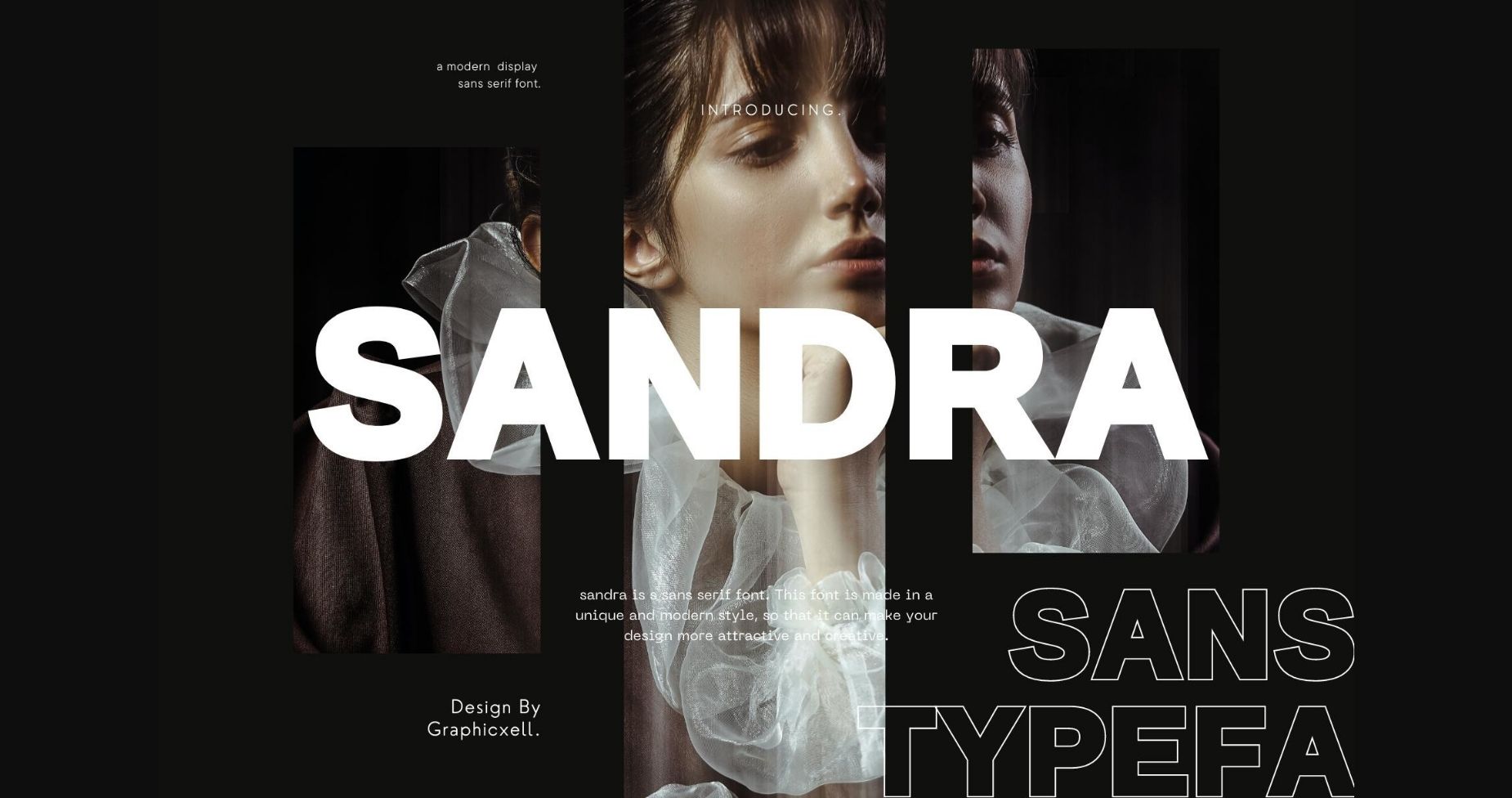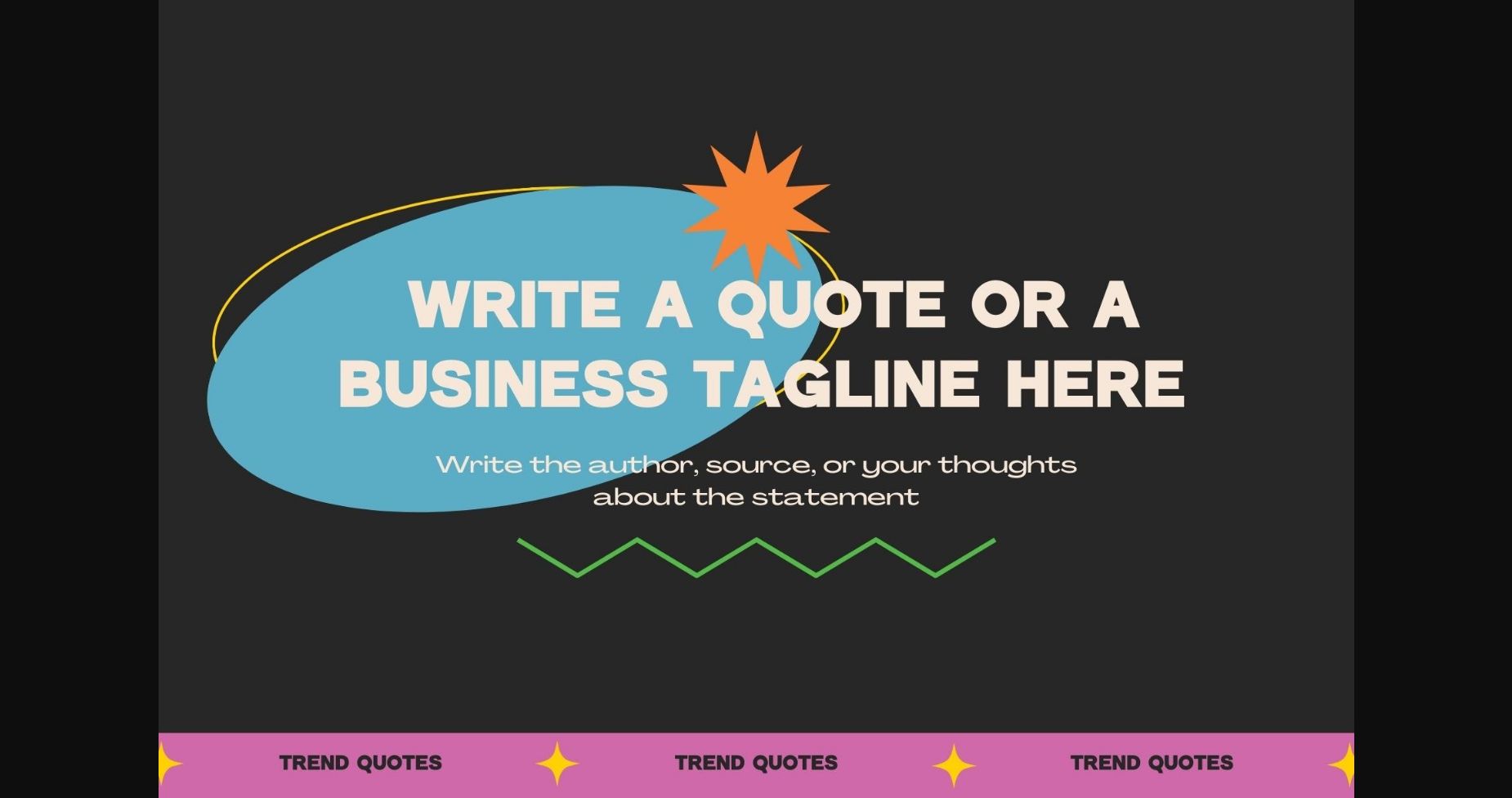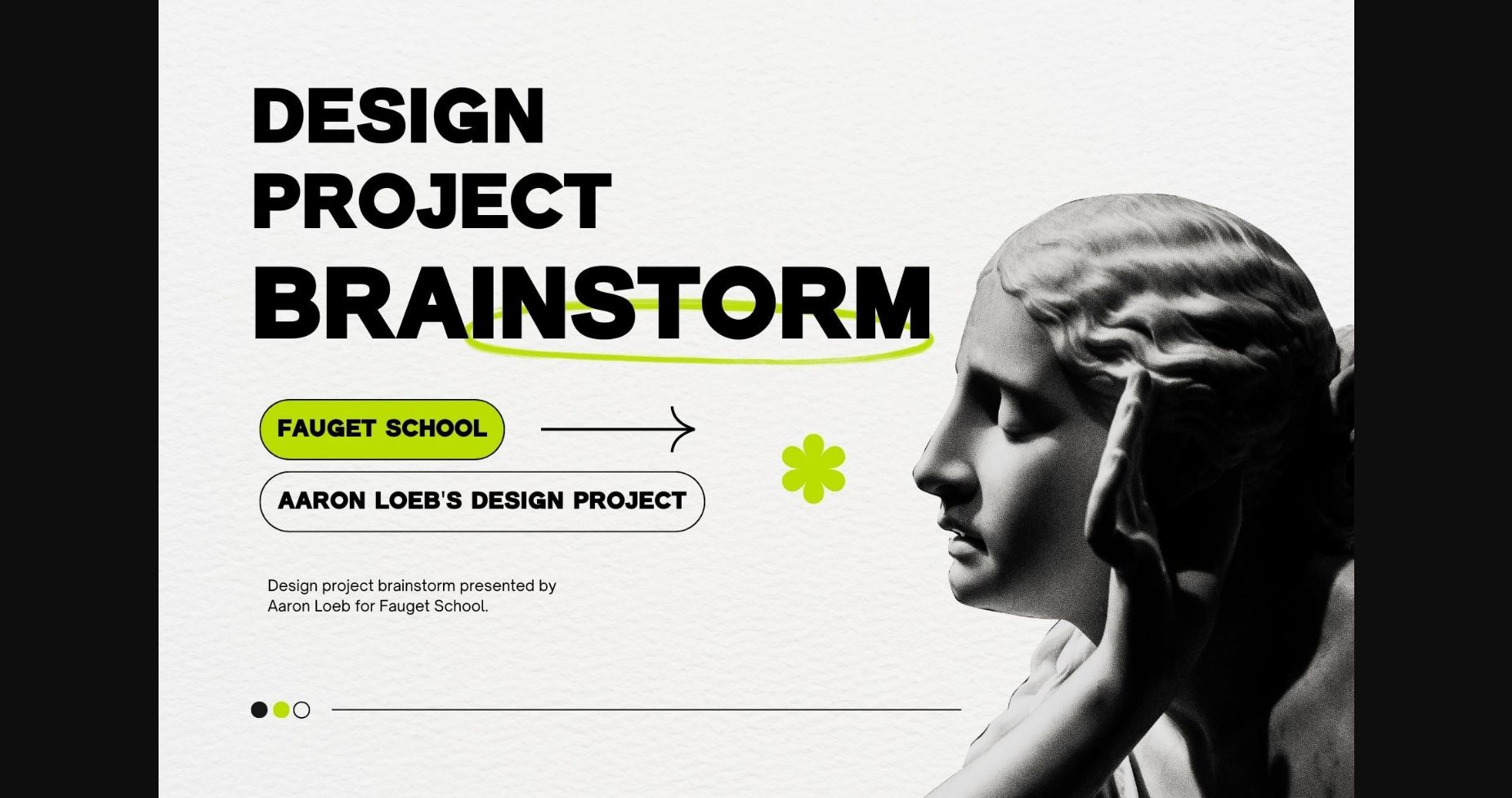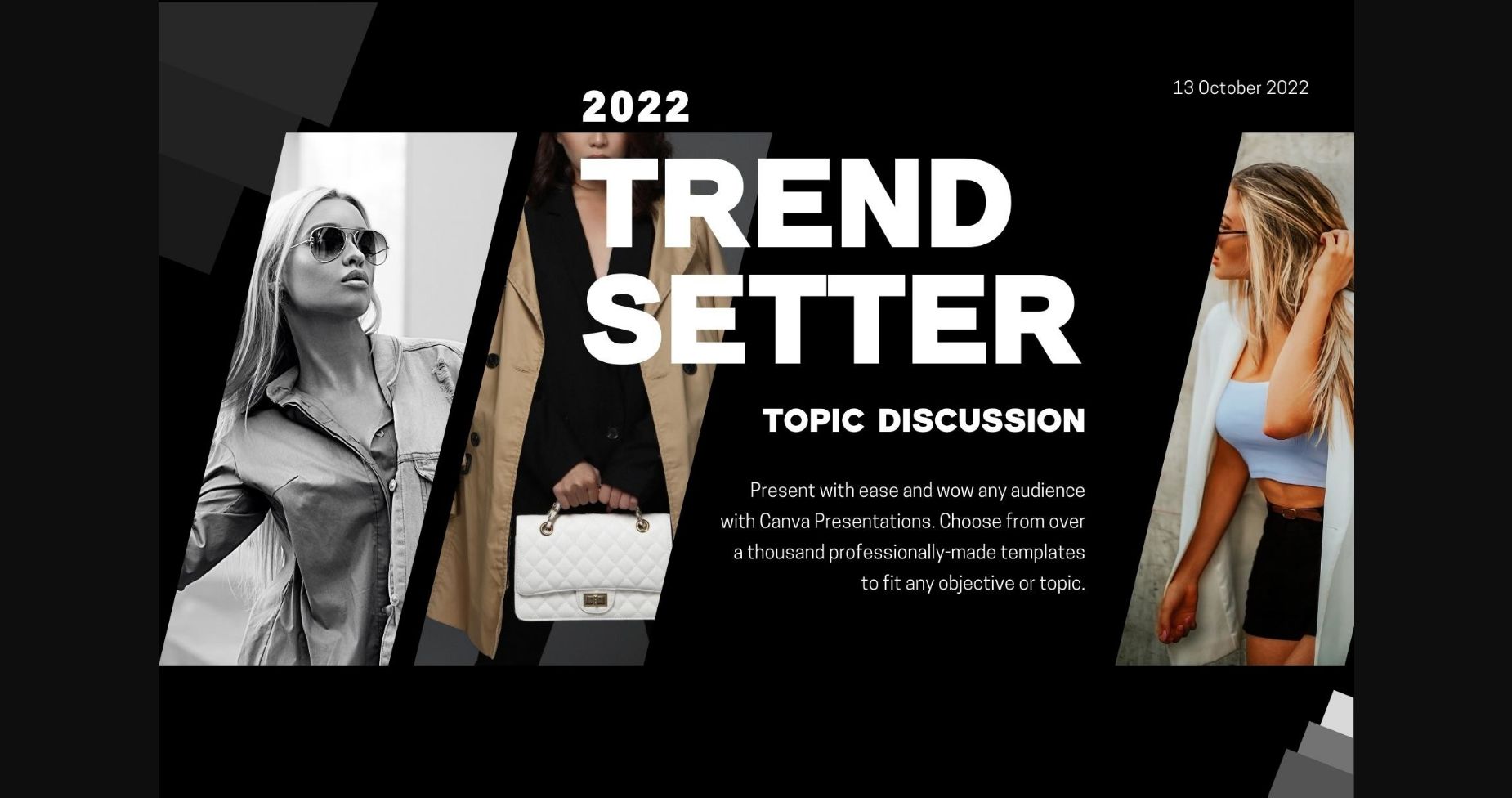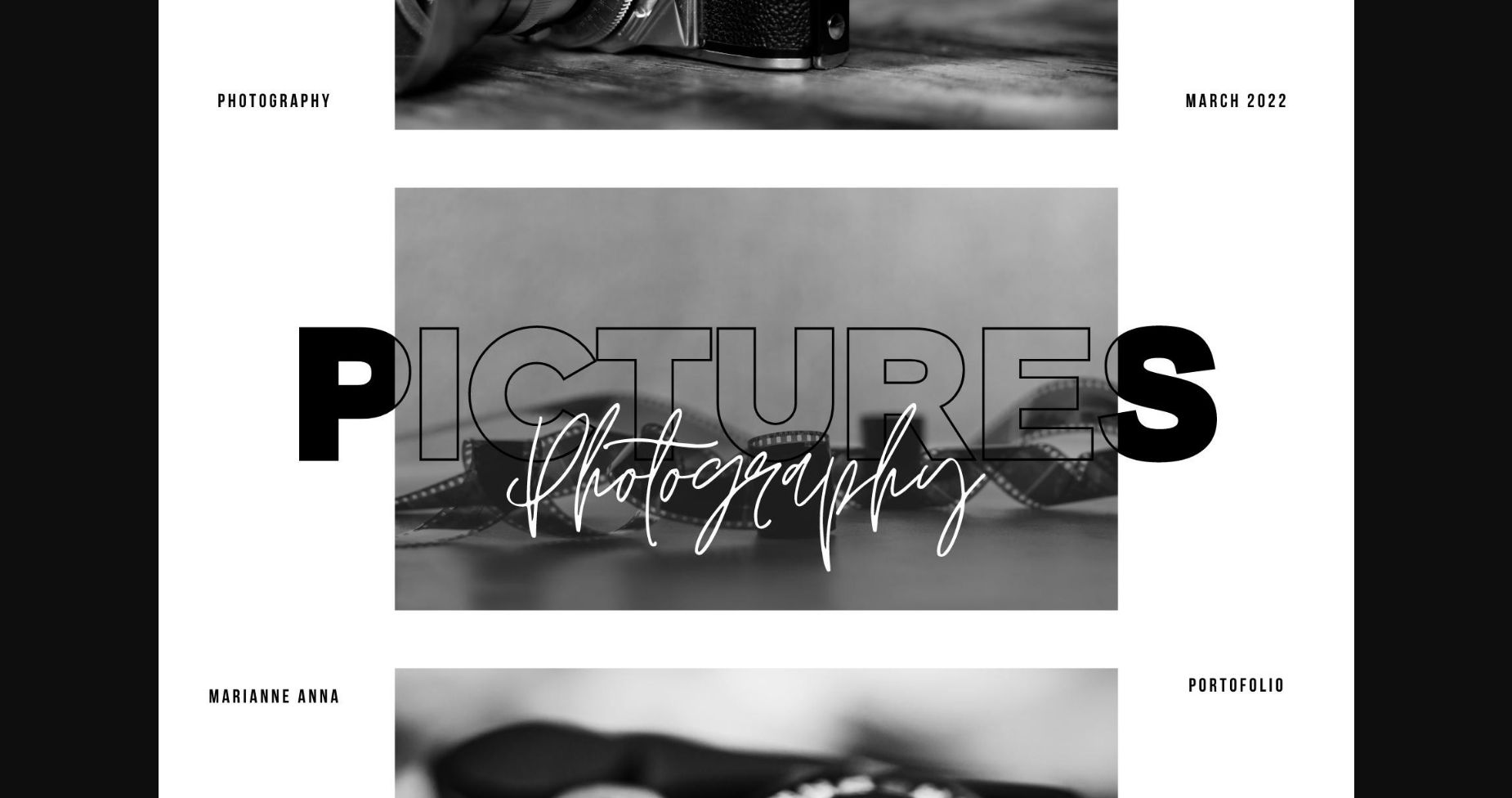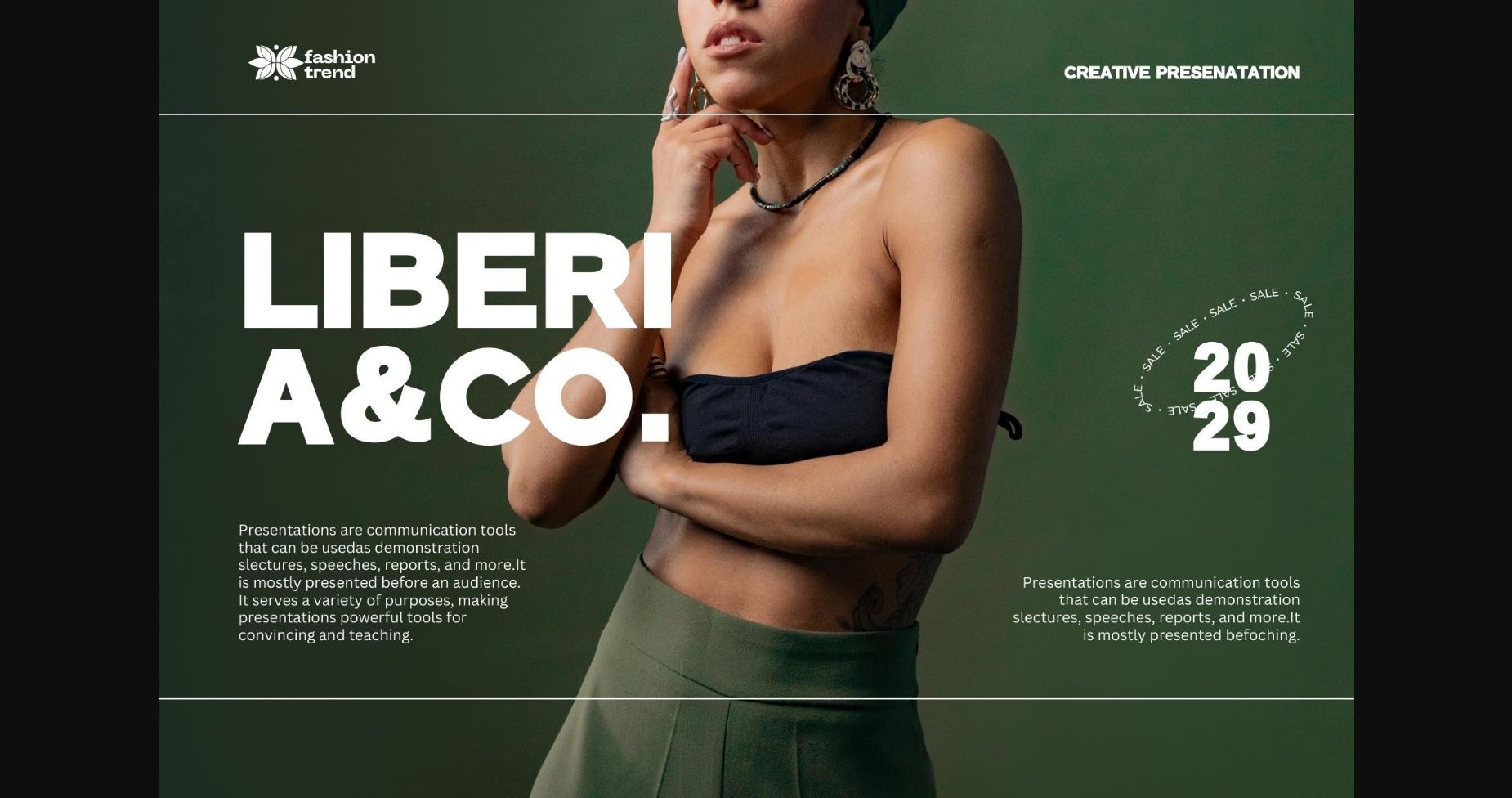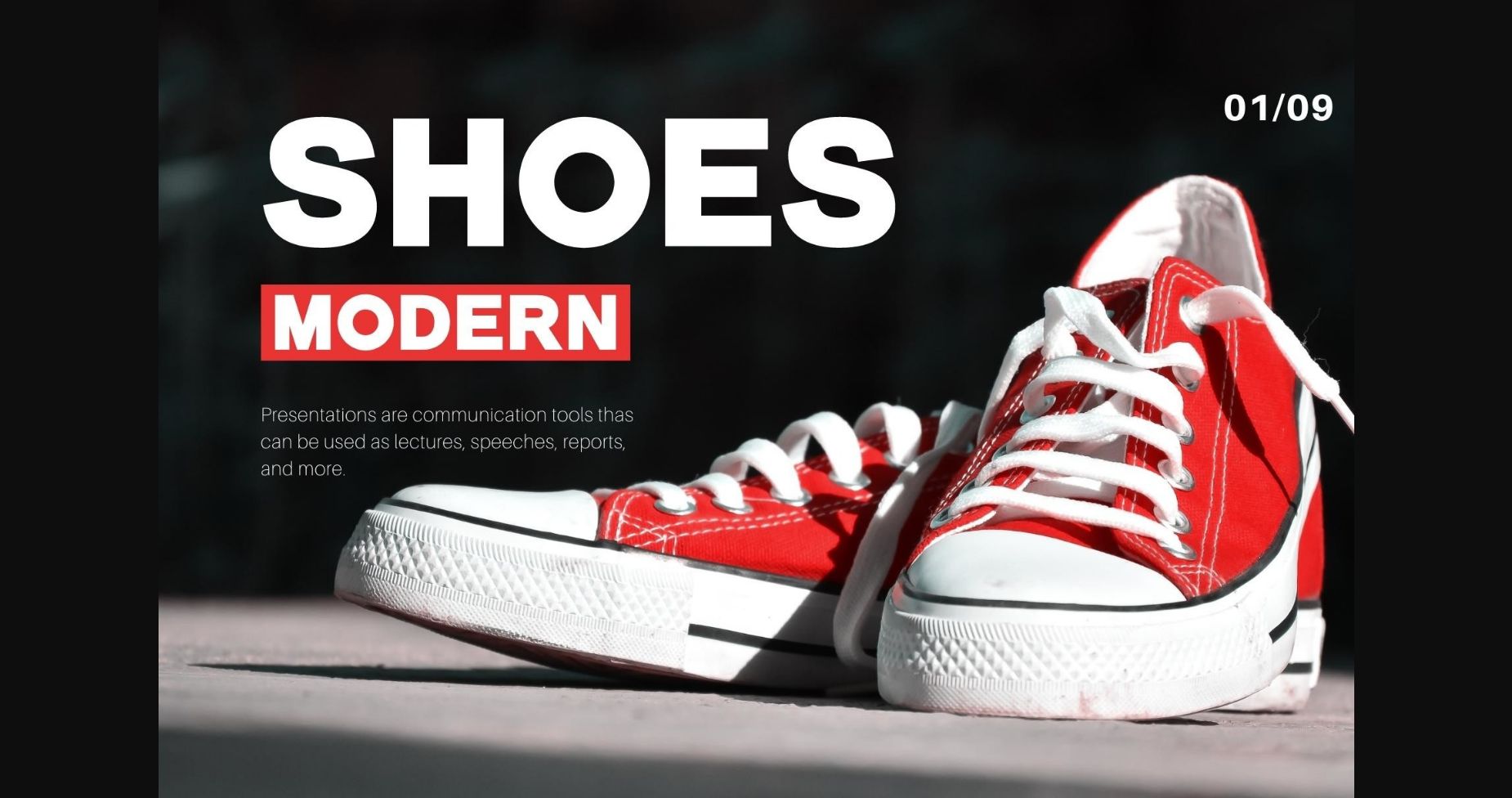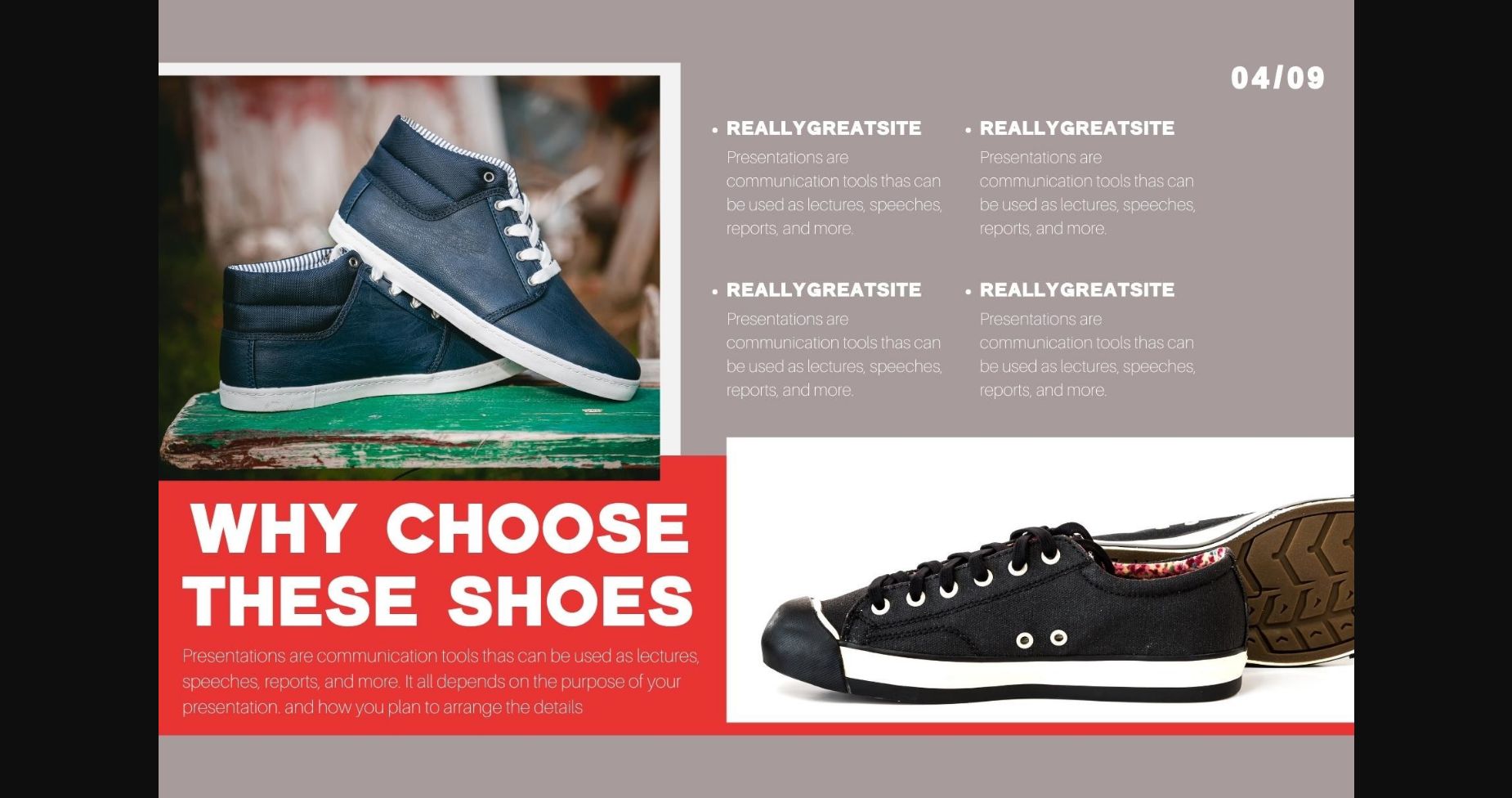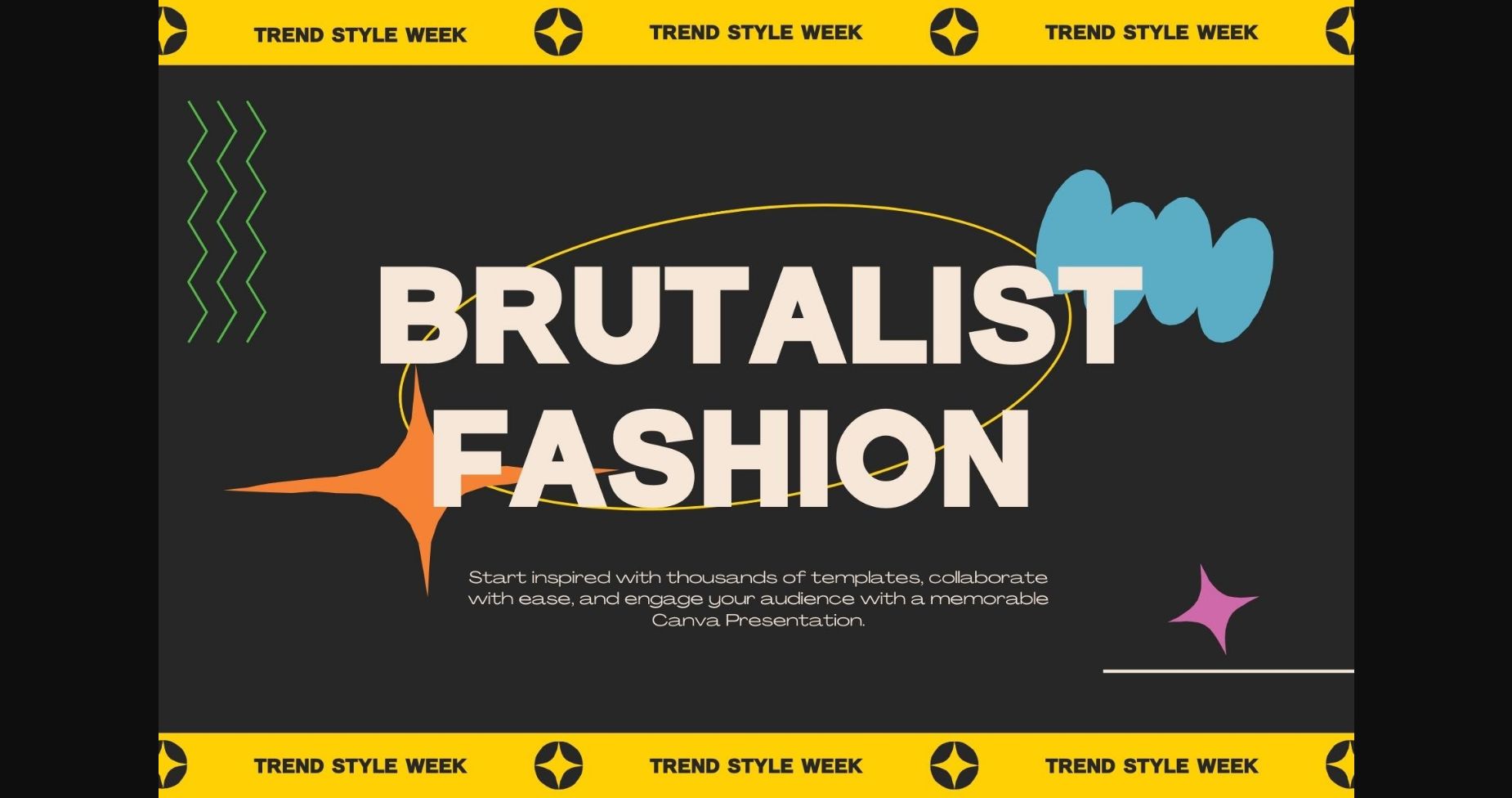
Sandra Font
About Sandra Font
Sandra is a cool and bold sans serif font that commands attention with its strong and confident letterforms. The thick and consistent strokes give it a modern and impactful appearance, making it ideal for headlines, titles, and branding projects. Its versatility allows it to be used in both digital and print designs, adding a touch of contemporary style to any composition.